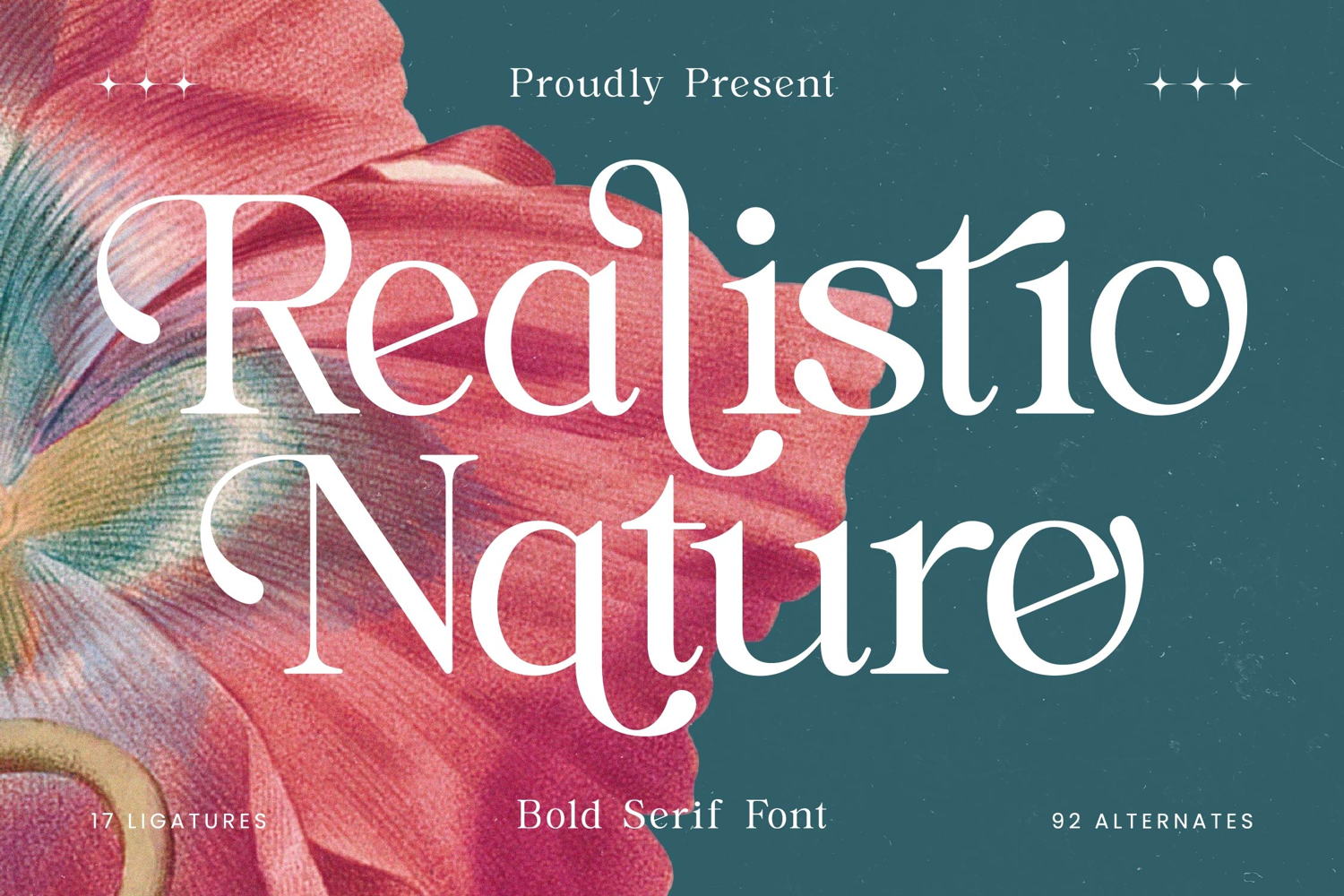
Realistic Nature - Bold Serif Font
Realistic Nature Italic
Realistic Nature
Realistic Nature - Bold Serif Font
Elevate your designs with the distinctive allure of Font Realistic Nature - Bold Serif Font Serif Display, a typeface crafted to command attention and convey timeless elegance. This Bold Serif Display font marries classic sophistication with contemporary flair, presenting a high-contrast aesthetic that is both luxurious and eminently legible. Its unique, flowing serifs and graceful curves ensure your typography always leaves a memorable and impactful impression.
Unleash unparalleled creative freedom with the rich feature set of Font Realistic Nature - Bold Serif Font Serif Display. Boasting an impressive 92 alternates and 17 ligatures, this font offers boundless possibilities for custom typographic arrangements, allowing designers to sculpt truly unique wordmarks and headlines. Its exquisite letterforms and refined details deliver a sophisticated flair that instantly distinguishes any project from the ordinary.
Perfect for projects demanding an exceptional visual presence, Font Realistic Nature - Bold Serif Font Serif Display excels in diverse applications. It is the ideal choice for creating compelling luxury branding, elegant editorial design, sophisticated packaging, and striking advertisements. This font is specifically engineered to craft captivating headlines and bold titles, ensuring an unforgettable impact wherever it’s applied.
Expand your reach and enhance your project’s global footprint effortlessly. With its extensive multilingual support, Font Realistic Nature - Bold Serif Font Serif Display adapts seamlessly across global markets, making it incredibly versatile for international projects. This comprehensive language support, combined with its undeniable aesthetic appeal, cements its status as an indispensable asset for designers seeking a truly professional and universally resonant typeface.